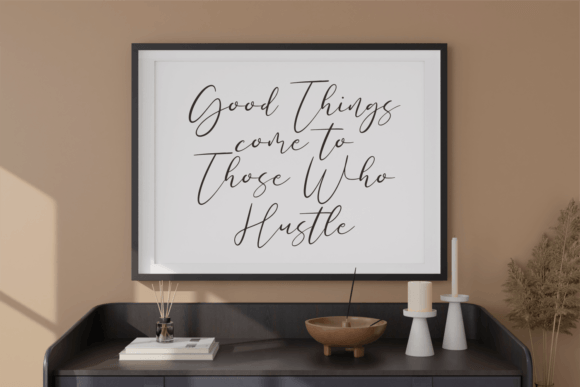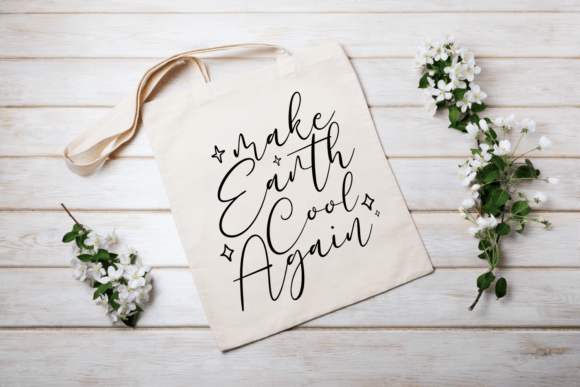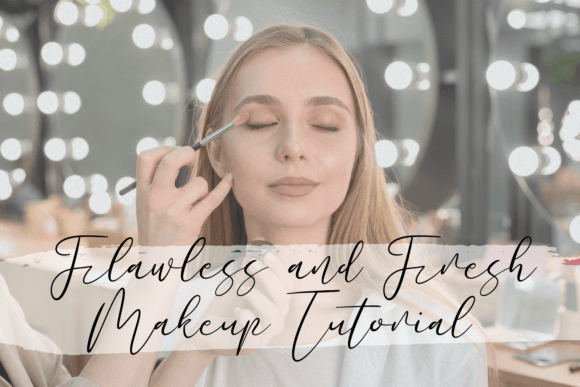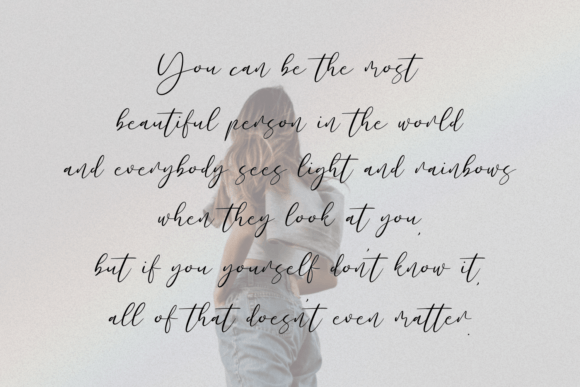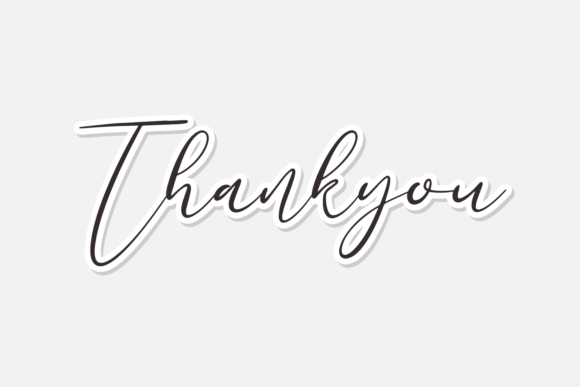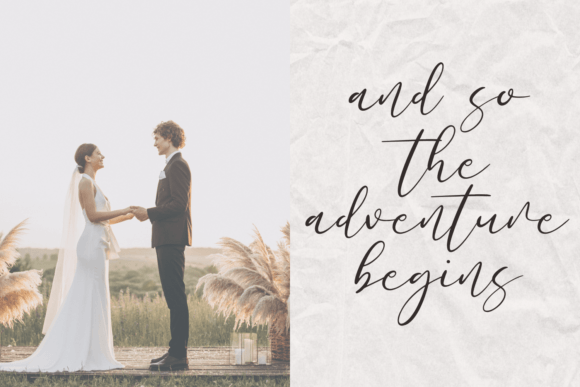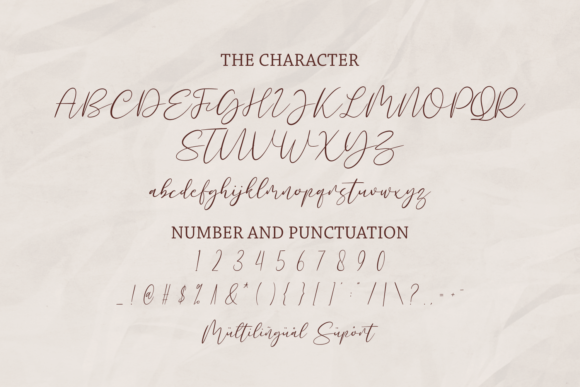
Mastyle Script Font
About Mastyle Script Font
“Mastyle Script” is a font designed to captivate and impress, adding a touch of fancy elegance to your projects. With its intricate and sophisticated design, this handcrafted font is crafted to make your branding shine, leaving a lasting impact on your audience. Its beauty and uniqueness make it a perfect choice for various applications, allowing your projects to dance with a touch of elegance and charm.
This font is versatile and can be used for a wide range of purposes. Its fancy and elegant style makes it particularly well-suited for headings, logos, advertisements, printed quotes, packaging, website design, and social media branding. When applied to these elements, “Mastyle Script” elevates your content, giving it a refined and luxurious appearance that draws the eye and captures attention.
One of the standout features of “Mastyle Script” is the attention to detail in every letter. Each character is meticulously crafted with a unique and beautiful touch, adding an extra layer of sophistication to your designs. This attention to individual letterforms ensures that your text comes alive, making your design visually stunning and engaging.
Additionally, “Mastyle Script” is optimized for use with cut machines like Cricut and Silhouette, making it a smooth and hassle-free choice for craft enthusiasts. Its smooth lines and intricate details ensure clean and precise cuts, allowing you to create intricate designs for various DIY projects with ease and precision.
By incorporating “Mastyle Script” into your projects, you’re not just using a font; you’re making a statement. You’re showcasing your commitment to quality and aesthetics, ensuring that your branding and designs leave a lasting impression. Its elegance and charm elevate your content, adding a touch of sophistication to your visual communication.
So, let “Mastyle Script” be the magic wand that transforms your creative ideas into visually enchanting masterpieces. Whether you’re designing for print or digital media, this font will add a touch of fancy elegance, making your projects truly stand out and impress your audience. Let your creativity flow, and watch as “Mastyle Script” adds a touch of magic to every element it graces.